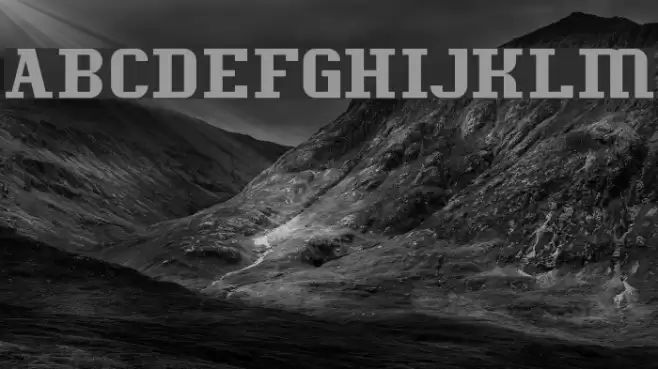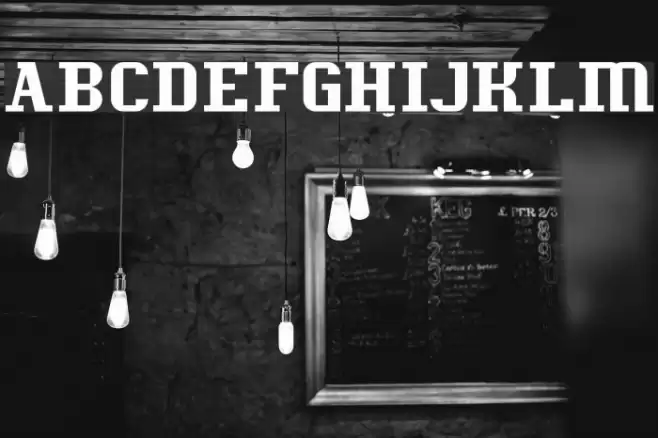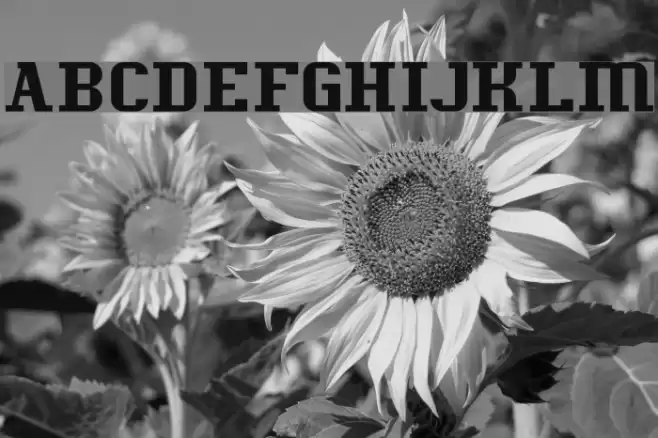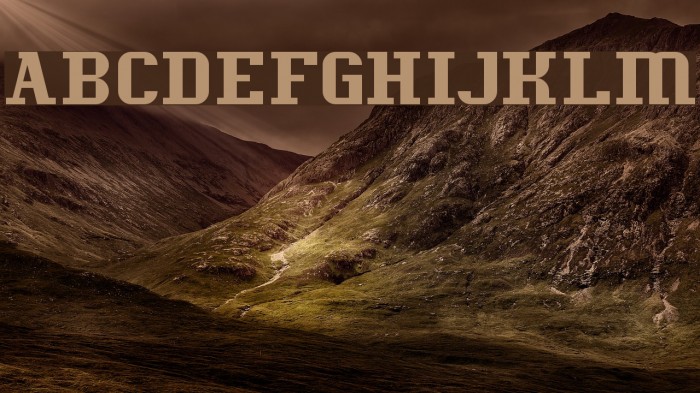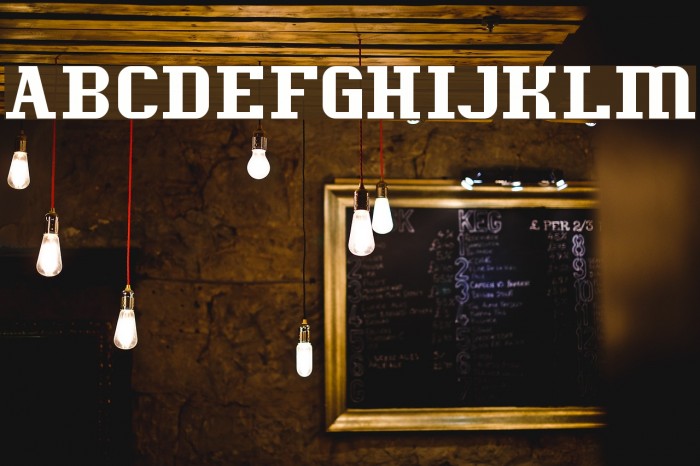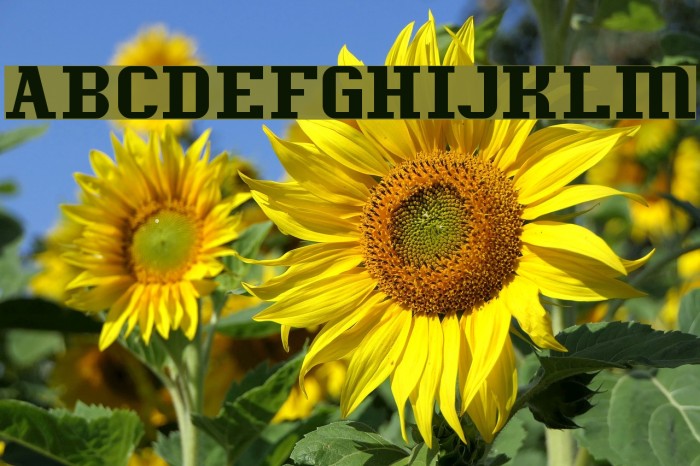
Messe Berlin Font
Messe Berlin Description
This font features a bold and robust slab serif design, characterized by thick, block-like serifs that give it a strong and authoritative presence. The uppercase letters are uniform in height, with a consistent stroke width that adds to its bold appearance. The lowercase letters maintain the same sturdy structure, with slightly rounded edges that soften the overall look. The numerals are equally bold, ensuring readability and impact. Special characters are designed with the same attention to detail, making them stand out distinctly. This font is ideal for making a statement, with its high contrast and solid form.
A bold slab serif font with strong, block-like serifs and high contrast from Uncategorized fonts.
- Proposed Projects: Ideal for headlines, posters, branding, and any project requiring a bold, impactful typeface.